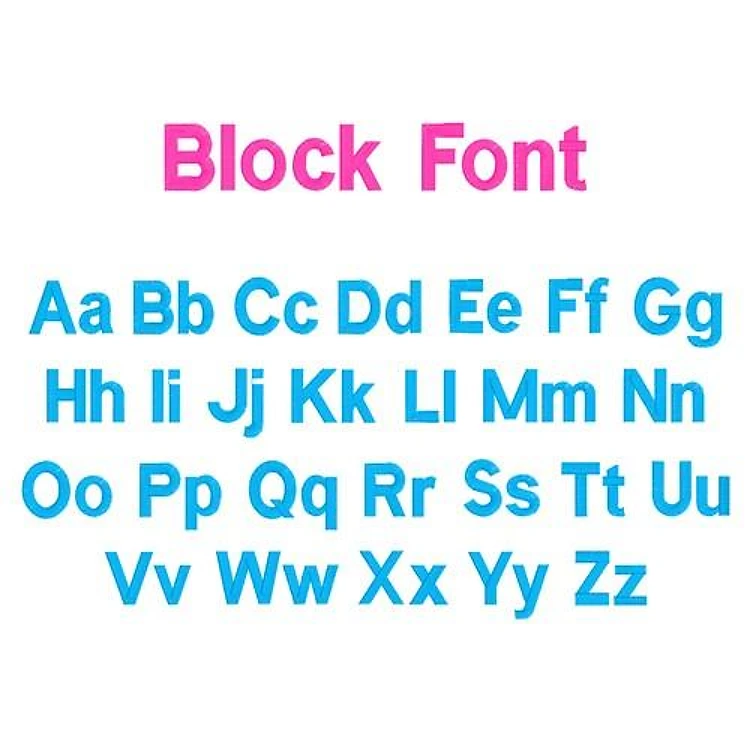
Maya Kreations is happy to present Block Font machine embroidery font which has Bright block design machine embroidery font in bold blue, ideal for projects on jackets, caps, or tote bags. Available in DST, PES and other Home Format options. included. If you would like to view more embroidery fonts and alphabets please search our embroidery fonts page.